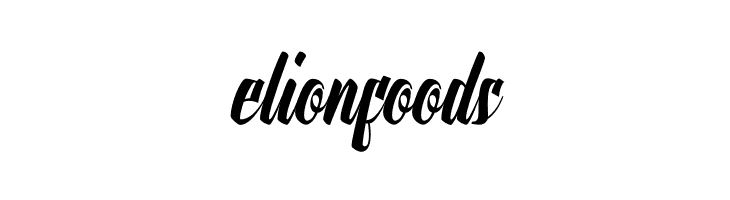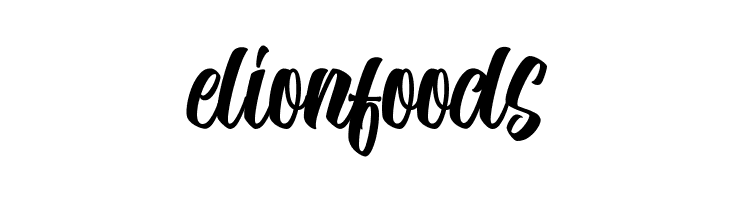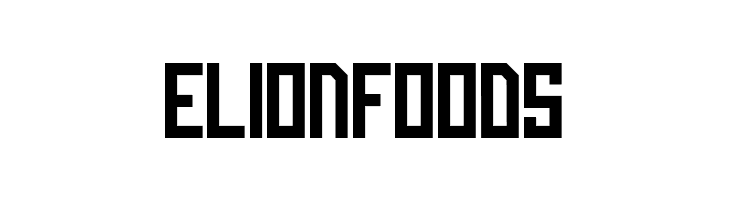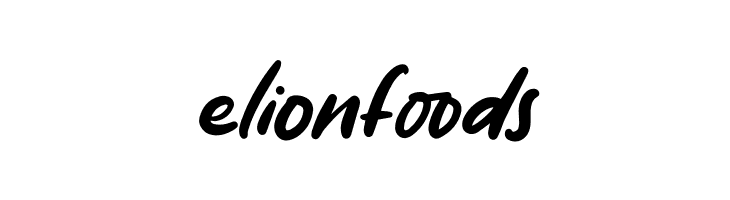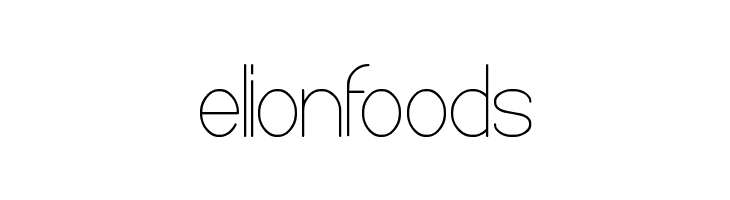
A bold, modern font with geometric lines and minimal contrast.
A bold, italicized font with strong, dynamic strokes and a modern style.
A modern, italic font with angular lines and a sleek, condensed style.
A playful, cartoon-inspired font with bold, hand-drawn characters.
A bold, cartoonish font with a playful, hand-drawn style.
A bold, angular font with a futuristic and dynamic design.
Bold, casual handwritten script font.
A graceful script font with flowing, interconnected letters and elegant flourishes.
An elegant, italic script font with flowing, cursive characters.
A bold, geometric font with a modern and edgy style.
A casual, chalk-like handwritten font with a playful and dynamic style.
A bold, halftone-patterned font with a textured, dotted appearance.
A bold, halftone-patterned font with a modern and retro vibe.
A bold, vintage-style font with thick strokes and a slightly condensed form.
A dynamic and flowing script font with elegant cursive letterforms.
A modern, geometric font with thin strokes and a minimalist design.
A sleek, modern font with geometric and minimalist design.
A playful, hand-drawn font with whimsical, irregular strokes.
A bold, expressive script font with dynamic flow and elegant curves.
A bold, geometric font with strong outlines and industrial flair.
A futuristic, geometric font with bold, angular shapes and a modern aesthetic.
A modern, geometric font with a futuristic and technical design.
A modern, geometric font with a futuristic and sleek design.
A bold, geometric font with a modern, angular design.
A bold, geometric font with a military-inspired, stencil-like design.